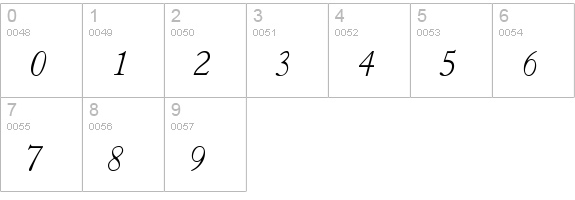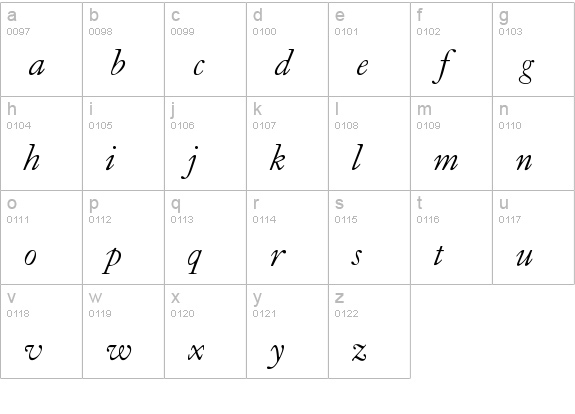
Caslon Old Face Italic Font Details
Caslon Old Face Italic is a distinctive, italic variant in the Caslon typeface family \xE2\x80\x94 well suited to design and typography projects.
Caslon Old Face Italic is a classic and elegant typeface that exudes sophistication and charm. Its slanted, cursive style adds a touch of flair to any design project, making it perfect for conveying a sense of tradition and refinement. The graceful curves and delicate serifs of Caslon Old Face Italic lend a timeless appeal, making it a versatile choice for both print and digital applications. What makes Caslon Old Face Italic even more appealing is that it is available for free download at FontsMarket.com. This means that you can easily access this beautiful font and use it in your projects without any cost. Whether you're working on a wedding invitation, a branding project, or a website design, Caslon Old Face Italic is sure to elevate your work with its classic and sophisticated aesthetic. Download it today and add a touch of elegance to your designs!